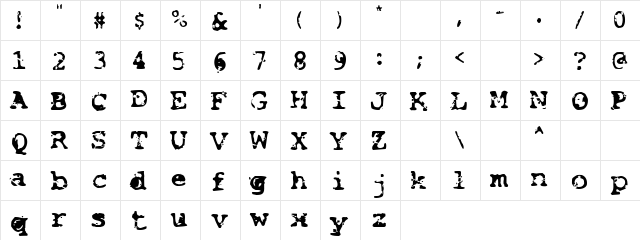
Letter Box Regular Font Preview
Letter Box Regular
Design Context for Letter Box Typeface
Letter Box is a composed and adaptable typeface that performs quietly and consistently across a wide range of design contexts.